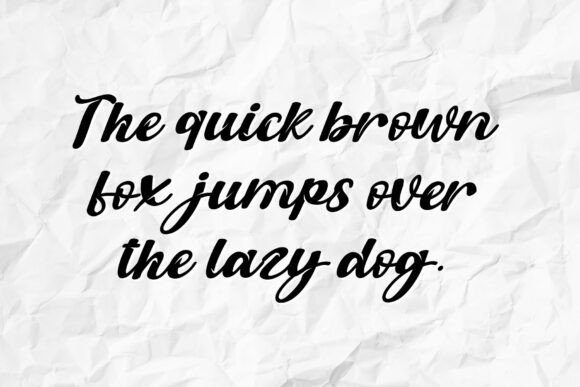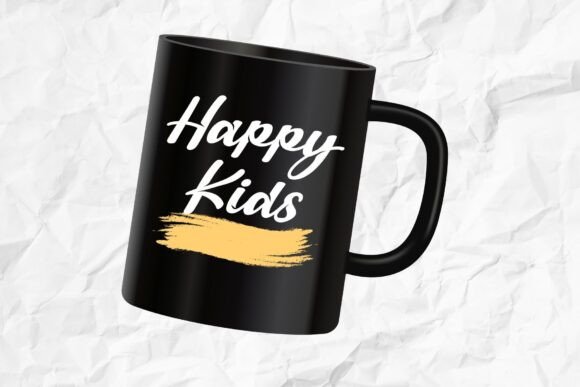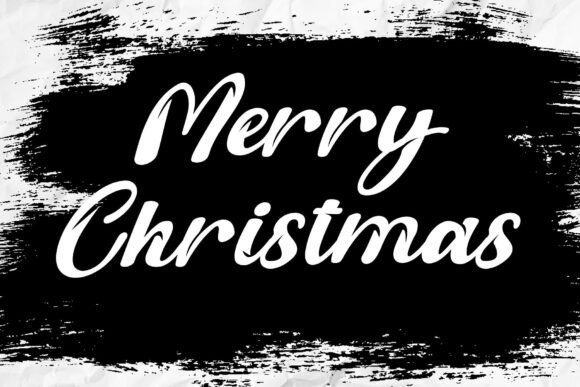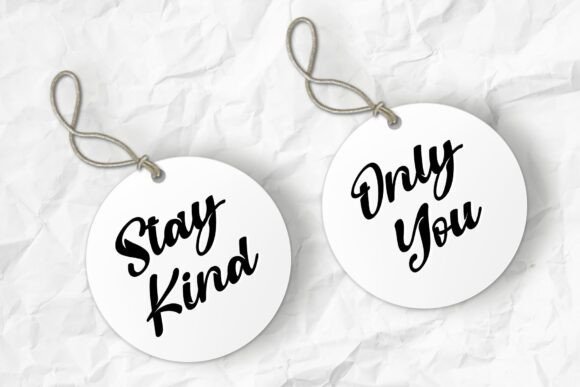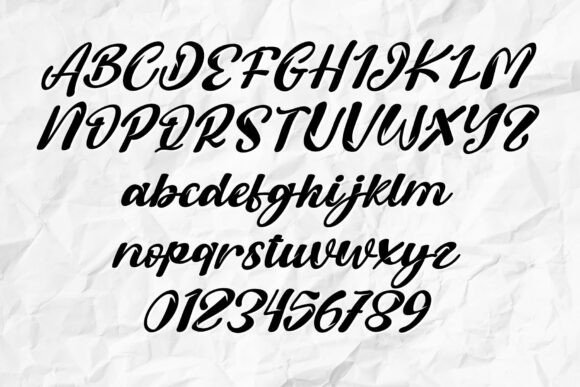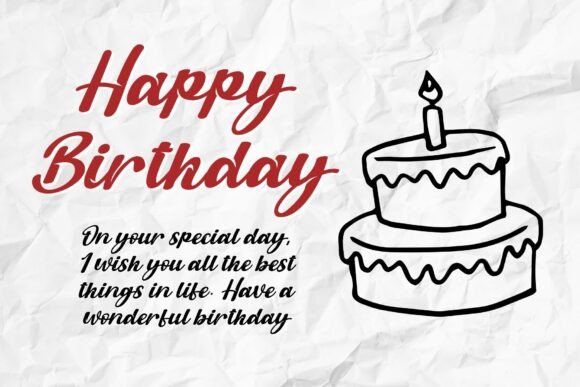
Experience the Enchanting Versatility of Flower Xmas Font
Are you a designer or crafter looking for a font that can elevate your design work to the next level? Look no further than Flower Xmas, a modern script font that is tailored to add an artistic touch to your creations. With its enchanting versatility, Flower Xmas is perfect for a wide range of applications, from glamorous wedding invitations and stylish logos to captivating headlines and more.
Effortless Elegance in Every Application
Flower Xmas is designed to effortlessly elevate the elegance of every application. Whether you’re creating wedding invitations, logos, or headlines, this font is sure to make a lasting impression. Its modern script style adds a touch of sophistication and glamour to any design, making it perfect for designers and crafters who want to create high-end looking materials.
Transform Mundane Designs into Fashion Statements
One of the best things about Flower Xmas is its versatility. This all-around font can transform mundane t-shirts into fashion statements and breathe life into dull letterheads. Imagine being able to create eye-catching signage, elegant labels, and compelling posters that leave a lasting impression on your audience. With Flower Xmas, you can do just that.
- Create glamorous wedding invitations that set the tone for a luxurious and unforgettable event.
- Design stylish logos that make your brand stand out from the competition.
- Develop captivating headlines that grab attention and draw in your audience.
- Transform mundane t-shirts into fashion statements with custom designs.
- Breathe life into dull letterheads and give your correspondence a touch of elegance.
- Create eye-catching signage that makes your business or event stand out.
- Give your labels an elegant makeover and add a touch of sophistication to your products.
- Design distinctive badges that leave a lasting impression on your audience.
- Versatility: Flower Xmas is an all-around font that can be used for a wide range of applications.
- Elegance: This font adds a touch of sophistication and glamour to any design.
- Modern Style: Flower Xmas has a modern script style that is perfect for designers and crafters who want to create high-end looking materials.
- Use for Headlines and Titles: Use Flower Xmas for headlines and titles to add a touch of elegance and sophistication.
In conclusion, Flower Xmas is a versatile and elegant font that is perfect for designers and crafters who want to add an artistic touch to their design work. With its modern script style and effortless elegance, this font is sure to make a lasting impression on your audience. Whether you’re creating wedding invitations, logos, headlines, or more, Flower Xmas is the perfect choice. So why wait? Download Flower Xmas today and experience the enchanting versatility of this amazing font for yourself.